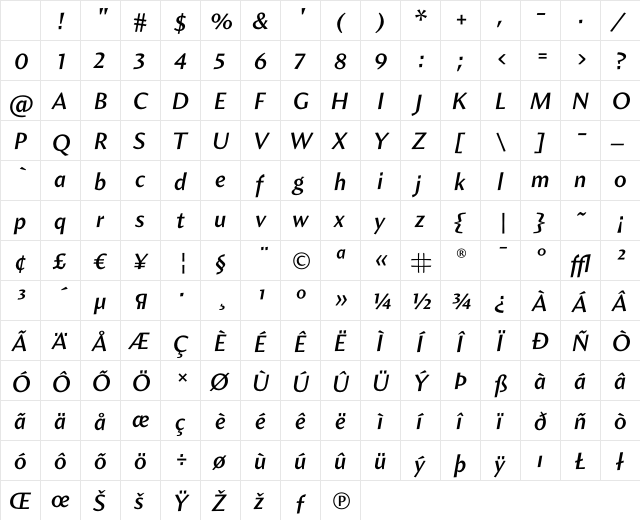
Complete Amira Semibold Italic glyph index. Displaying only characters natively supported by Amira Semibold Italic font.
Amira is a composed and adaptable typeface that performs quietly and consistently across a wide range of design contexts. The slanted form adds forward momentum and visual energy. Its bold stroke weight gives it real presence on the page.
Pro Tip: Use Amira for emphasis, pull quotes, and subheadings where its slanted energy can add rhythm to the layout.